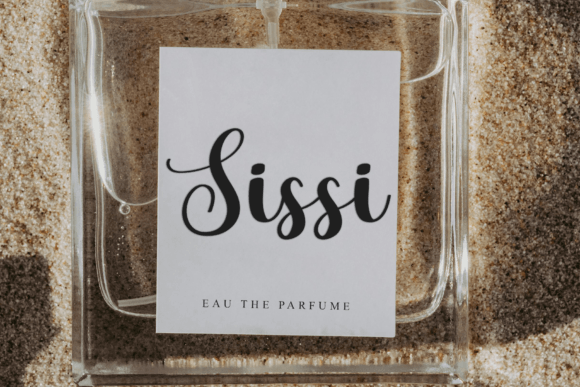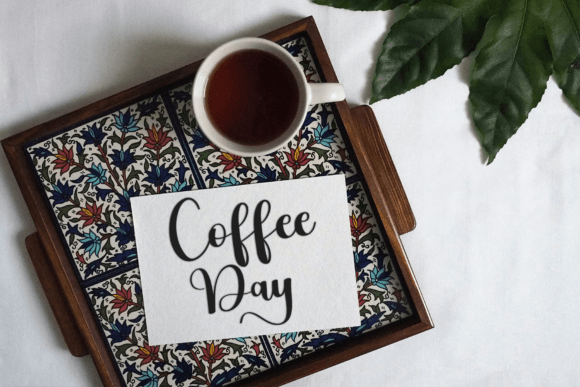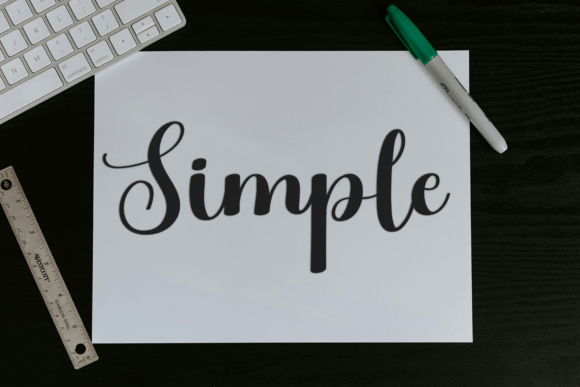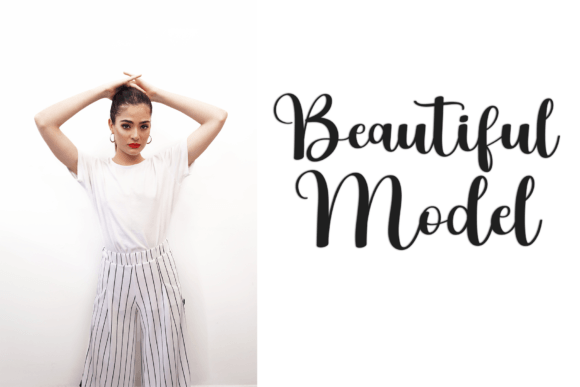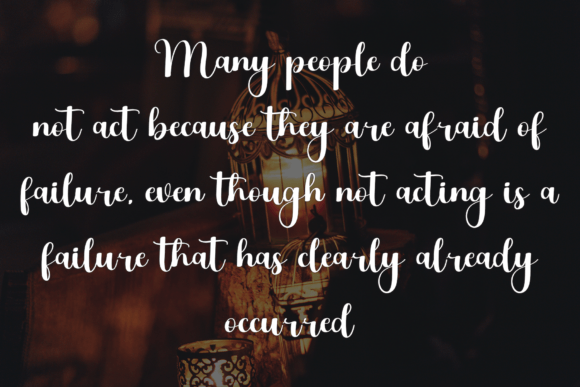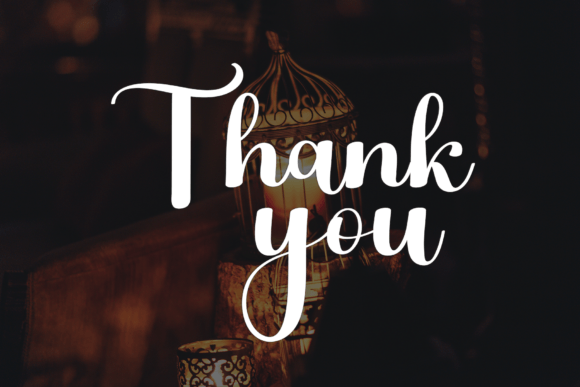
Introduction to Hey Naughty Font
Have you ever been stuck on a creative project, struggling to find the perfect font to bring your vision to life? I know I have! It’s like searching for the missing piece of a puzzle – frustrating and time-consuming. But what if I told you there’s a font that can change all that? Enter the Hey Naughty Font, a stunning handwritten font that’s sure to elevate your design game.
This lovely and timeless font is a game-changer for designers. Its unique and beautiful touch will make your design come alive, whether you’re creating eye-catching logos, branding, or quotes. With its high-quality design and transparent background, you can use it on any creative project you can think of. And the best part? It’s available for free download, making it an invaluable resource for designers of all levels.
Key Features of Hey Naughty Font
- Unique, hand-drawn design style with a playful touch, perfect for creative projects and design resources.
- Transparent background option for easy customization and versatility in design.
- Available in 3 different font sizes: Small (12pt), Medium (18pt), and Large (24pt), making it suitable for a variety of design applications.
- Resolution-independent design, ensuring crisp and clear text display on high-resolution screens and print materials.
- Supports a wide range of languages, making it a valuable resource for international design projects.
- Perfect for adding a touch of whimsy and personality to logos, branding materials, and other creative projects.
Honest Review: Hey Naughty Font
I recently stumbled upon the Hey Naughty Font while searching for a free download to enhance my creative project. As a designer, I’m always on the lookout for high-quality design resources that can elevate my work.
Here’s what I think:
- ✨ The font is super fun and playful, perfect for projects that need a bit of whimsy. I love the quirky vibe it brings to the table.
- ✨ The transparent background makes it easy to use in various design applications, from digital graphics to print materials.
- ✨ The font is highly customizable, allowing me to tweak it to fit my project’s specific needs.
However, I do have some reservations:
- ⚠️ The font can be a bit overused, so I’d advise using it sparingly to avoid clichés.
- ⚠️ Some of the characters may not display correctly in certain fonts, so be sure to test it thoroughly before using it in a critical project.
Overall, I’d say the Hey Naughty Font is a solid addition to any designer’s toolkit. While it may have some limitations, its unique personality and high-quality design make it a valuable resource for creative projects.
Tips for Getting the Most Out of Hey Naughty Font
For optimal results, use Hey Naughty Font in conjunction with other high-quality design elements. Experiment with different font sizes, colors, and arrangements to create a unique visual identity. You can also use the font in combination with images and graphics to add depth and interest to your design.
Common Use Cases for Hey Naughty Font
Hey Naughty Font is ideal for use in a variety of creative projects, including digital designs, presentations, and documents. It’s also a great choice for branding and marketing materials, such as logos and business cards. The font’s transparent background makes it easy to use in conjunction with other design elements.
Q: Does Hey Naughty Font have a transparent background?
Yes, Hey Naughty Font has a transparent background, making it ideal for use on digital products, such as web graphics, social media posts, and mobile apps. The transparent background allows you to easily composite the font with other design elements, giving you more creative freedom and flexibility.